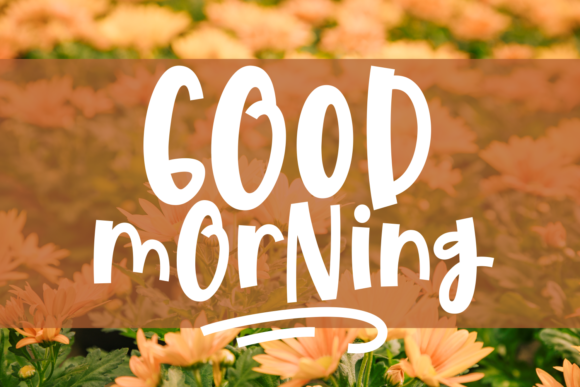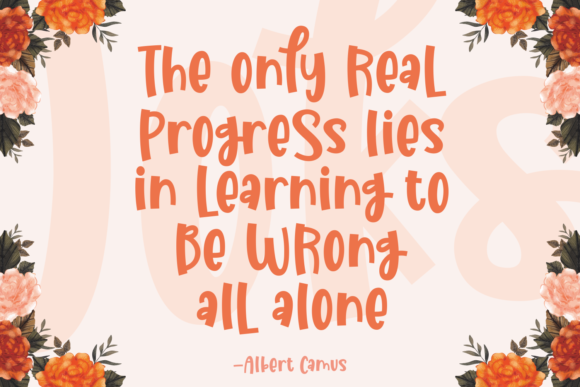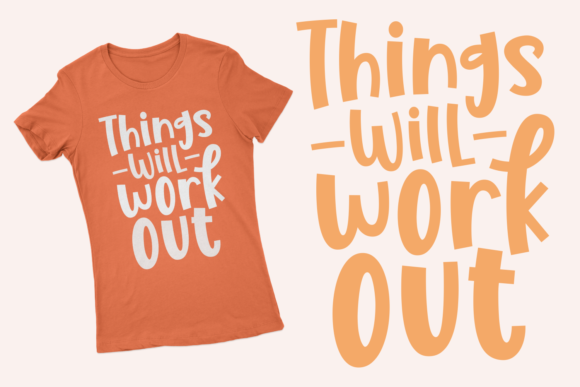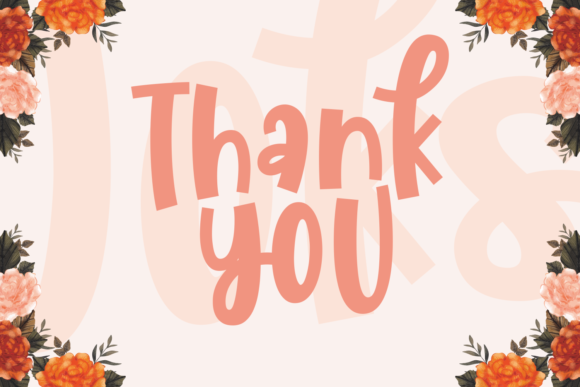
Introduction to Joks Font
Have you ever been scrolling through Instagram, and a beautiful font catches your eye, making you stop and admire the design? For designers, finding the perfect font can be a game-changer in bringing a creative project to life. One such font that has been making waves in the design community is the Joks Font – a cute and casual display font that exudes an incredibly friendly feel.
As a valuable resource for designers, Joks Font offers a high-quality design solution that can elevate any creative project. Whether you’re working on a social media campaign, a DIY project, or a calligraphy script, this font is sure to turn your ideas into stunning visual art. With its versatility and charming aesthetic, Joks Font has become a go-to choice for designers looking for a unique and eye-catching font.
Key Features of Joks Font
- Features a transparent background, allowing for seamless integration with various designs
- Includes a range of glyphs and characters, making it a versatile font for various design needs
- Designed with a modern aesthetic, making it ideal for contemporary creative projects
Honest Review: Joks Font
I recently came across the Joks Font, and I’m excited to share my thoughts on this design resource. The first thing that caught my attention was its high quality and unique design style, making it perfect for creative projects.
Here are some things that work well for the Joks Font:
- The font has a transparent background, making it easy to use in various design scenarios.
- The font’s quirky and playful style adds a touch of whimsy to any design project.
- The font may not be suitable for formal or professional designs, as it has a more casual tone.
- It’s not as versatile as some other fonts, with limited character sets and styles.
Overall, I think the Joks Font is a great addition to any designer’s toolkit, especially for creative projects that require a playful touch. Its high quality and unique design style make it a standout in the world of free fonts.